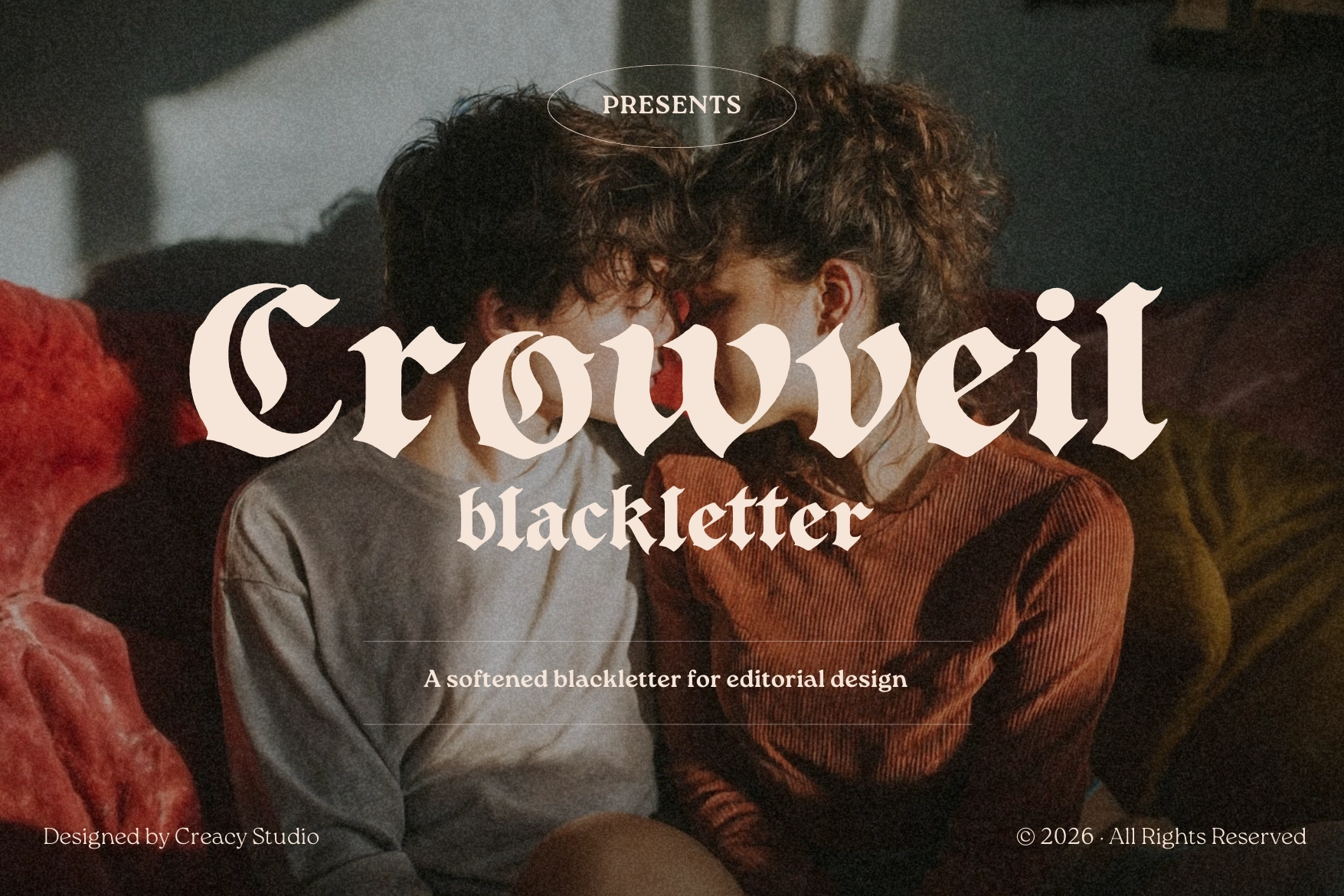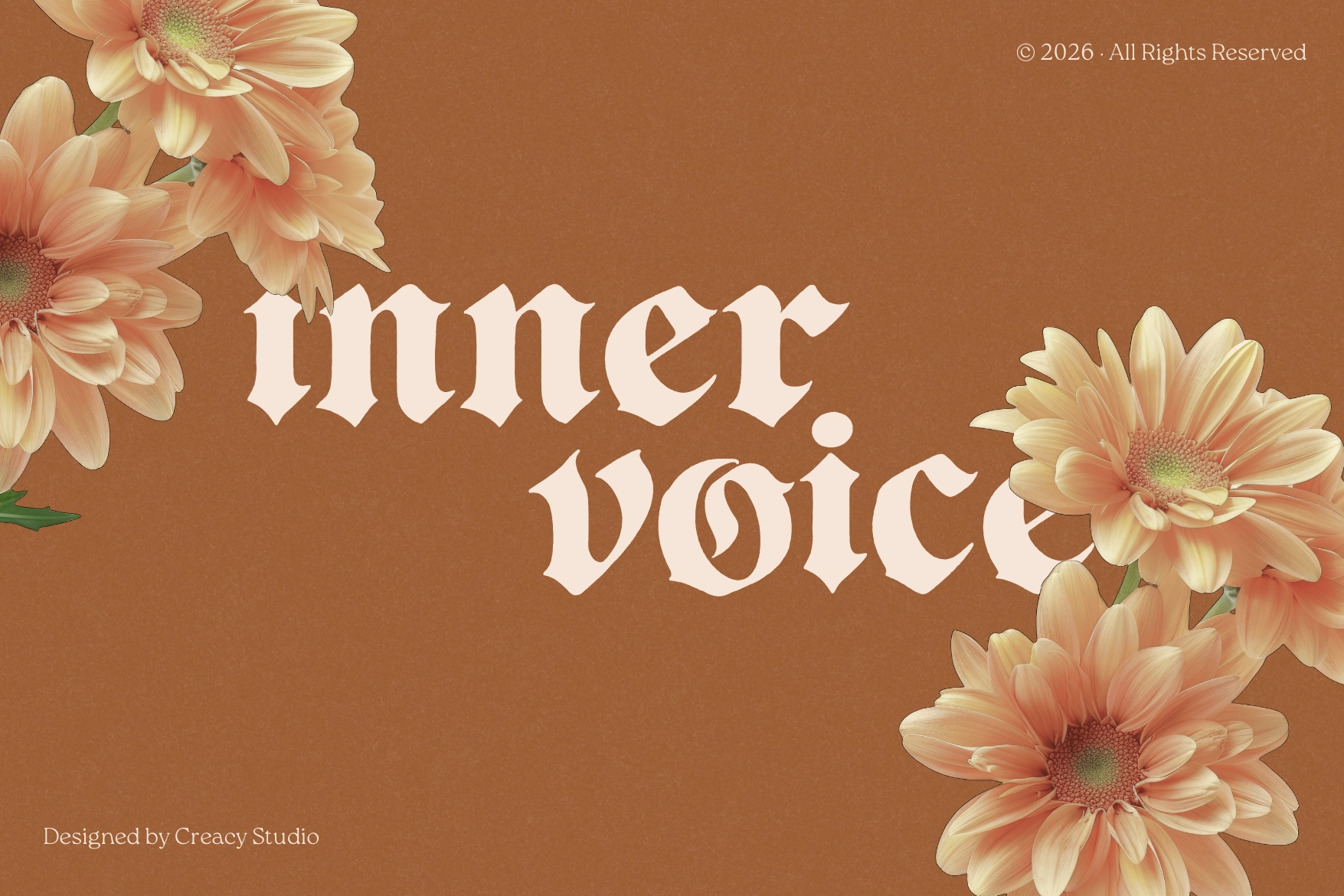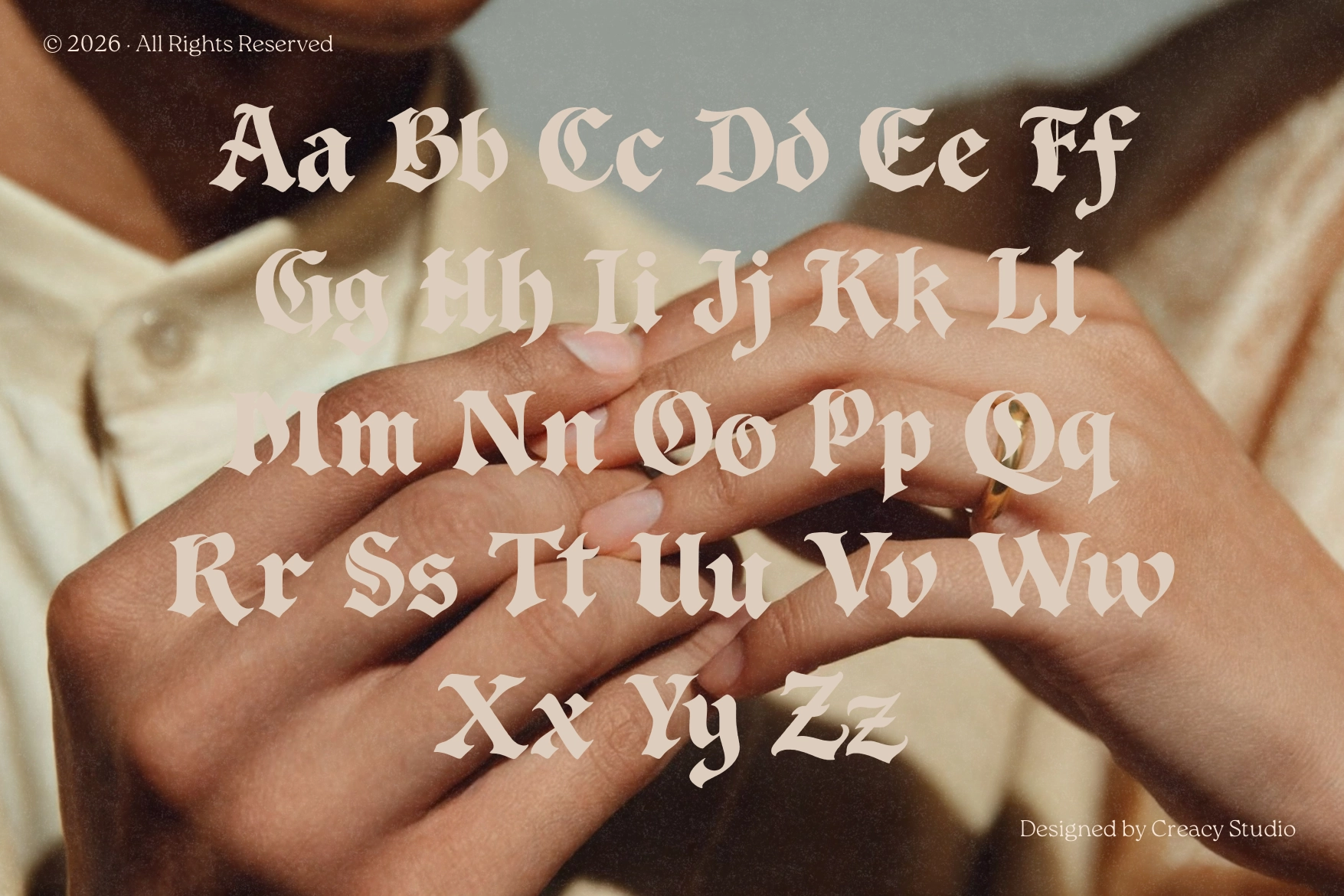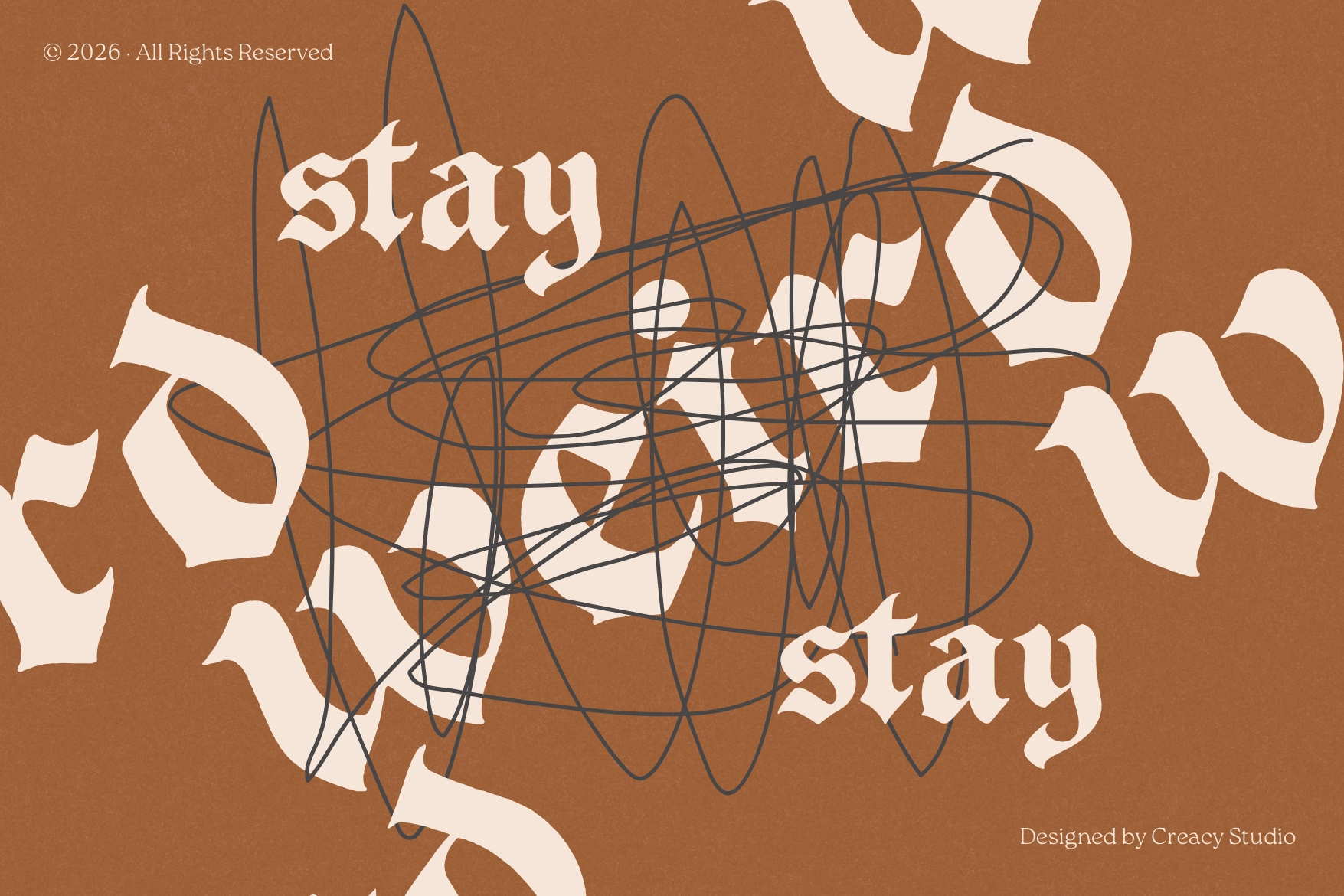
Crowveil Blackletter — Soft Editorial Gothic Font
Crowveil
Crowveil Blackletter is a contemporary blackletter typeface designed with a softer, more expressive approach. It reimagines traditional gothic letterforms through organic curves, rounded terminals, and refined proportions—resulting in a typeface that feels emotional, poetic, and modern.
Rather than rigid historical forms, Crowveil embraces fluid shapes and open spacing , making it especially suitable for editorial layouts and creative compositions where mood and storytelling matter as much as readability.
This typeface was crafted for designers who want to explore contrast between classic typography and modern visual language , blending darkness with warmth in a subtle, elegant way.
Why Crowveil:
- Softened blackletter design with contemporary character
- Expressive yet readable for modern editorial use
- Organic details and handcrafted feeling
- Strong visual presence without being overpowering
Ideal Use Cases:
- Editorial headlines & magazine spreads
- Fashion campaigns & lookbooks
- Artistic posters & album artwork
- Conceptual branding & visual identities
- Expressive quotes and typographic compositions
Typeface Details:
- Uppercase & lowercase characters